Graffiti fonts are not just trendy—they’re a powerful tool for injecting personality, boldness, and edge into your designs. Whether you’re creating streetwear branding, poster art, album covers, or urban-style logos, graffiti typefaces help you stand out in a crowded visual landscape.
2025 is the year to experiment boldly, and we’ve rounded up 24 of the most awesome graffiti fonts that will elevate your creative projects. These handpicked fonts come with attitude, energy, and street-style credibility. Let’s dive into the top picks you should try this year.
1. Back Wild
Back Wild is where raw energy meets urban fun. With a freestyle construction and energetic brushstrokes, this graffiti font brings life to your designs—perfect for branding, youth events, merchandise, and album covers. Its playful but fearless vibe commands attention wherever it lands.
2. Reign Beats
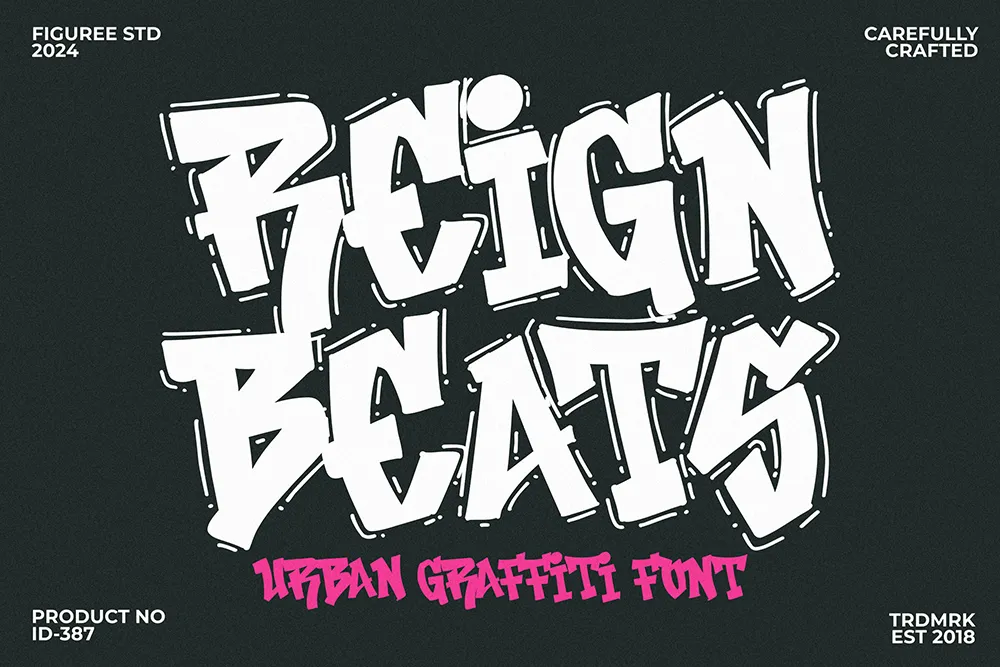
Reign Beats is your go-to font when you want to make some noise—visually. Inspired by the pulse of hip-hop and the vibrancy of the streets, this graffiti font is a dynamic blend of rhythm and rebellion. Ideal for posters, music promotions, and streetwear.
3. Quick Phestor
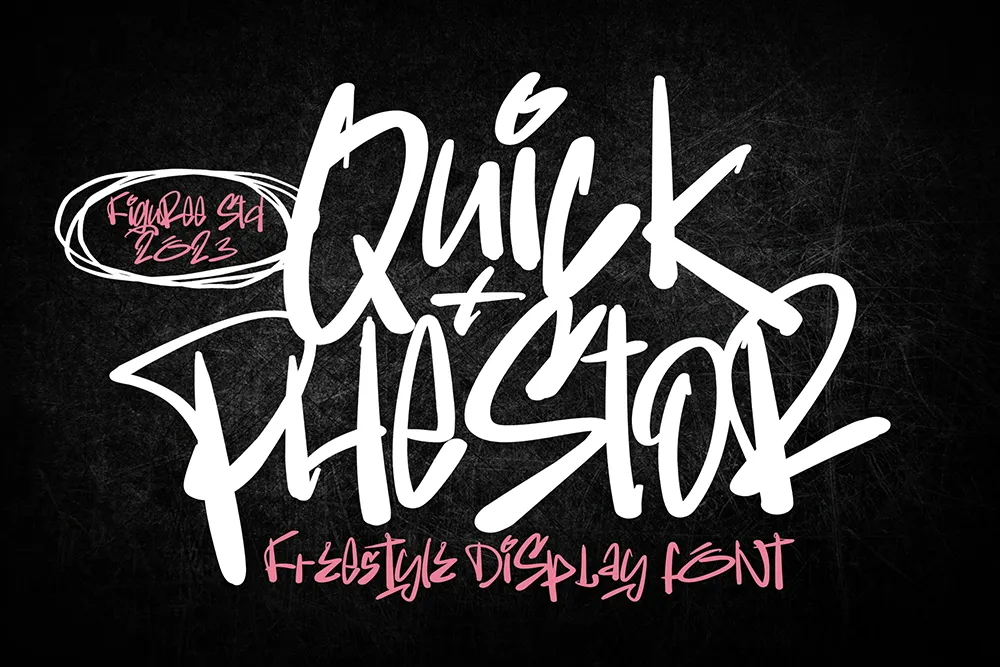
Quick Phestor oozes creative freedom. Its freestyle design and expressive curves deliver an authentic graffiti look that’s perfect for social graphics, sticker packs, or energetic headlines. Better yet? It’s free to use!
4. Xandercode
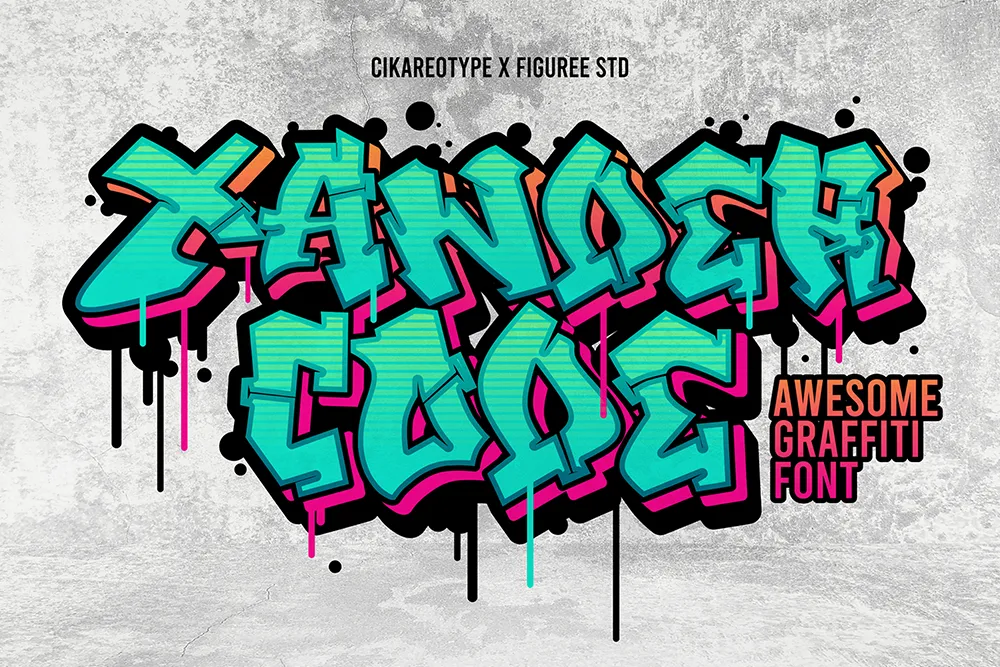
Xandercode is built for impact. With its bold strokes and rebellious form, this graffiti font packs a punch in logos, marketing visuals, and fashion designs. It’s fearless and stylish—exactly what urban creativity demands.
5. Darksite
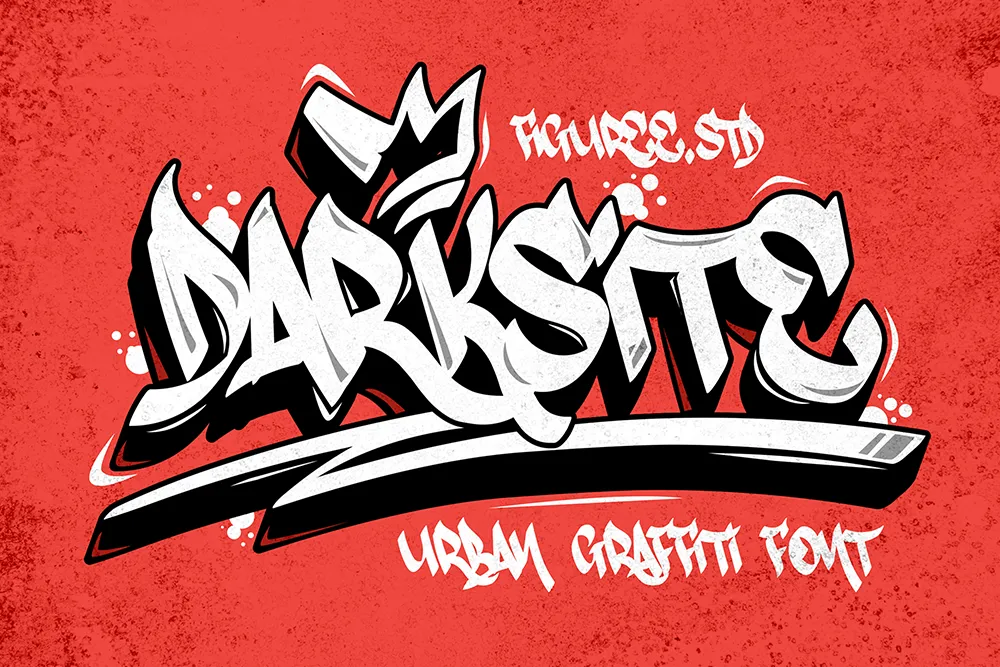
Darksite screams underground. This graffiti font gives your projects an edgy, no-holds-barred look. Hand-drawn and full of character, it’s perfect for hardcore branding, festival flyers, and gritty editorial design.
6. Greatboyz
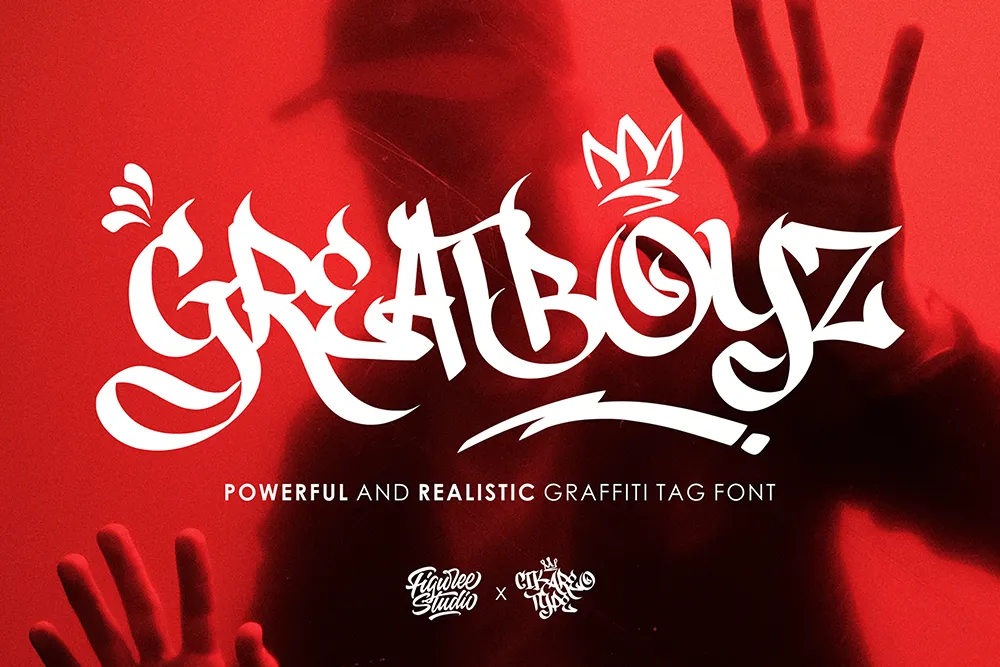
Looking to replicate real street tagging in your work? Greatboyz nails the vibe with its fluid, fast marker-style lines. This font is your shortcut to giving designs that have raw, street-tough authenticity.
7. Bombardies
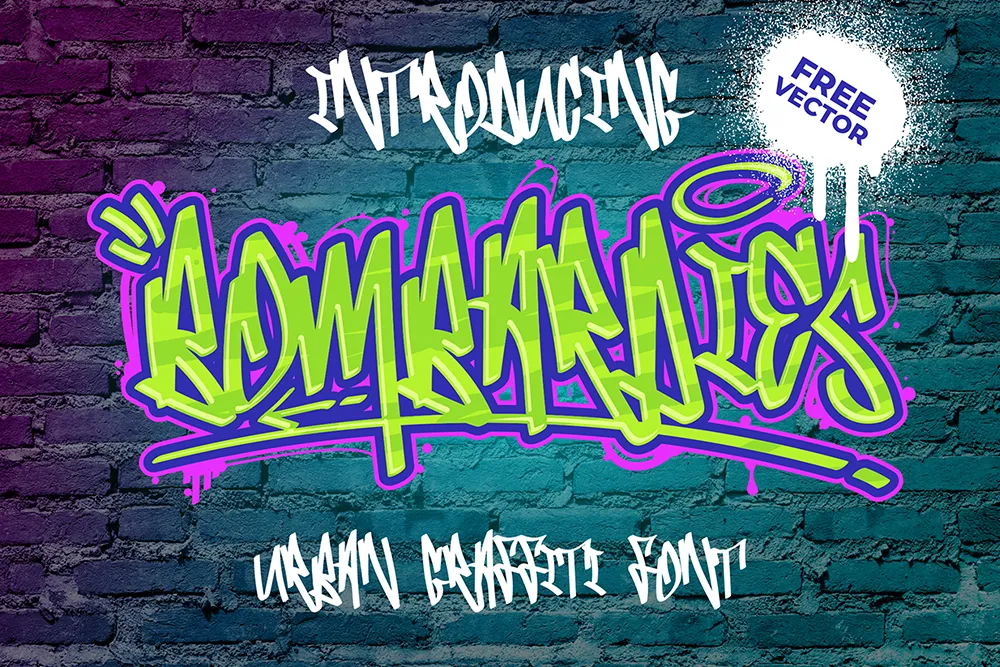
Bombardies is bold, modern, and versatile. Combining graffiti roots with clean forms, this font feels right at home in digital ads, apparel designs, and striking headers.
8. Urban Hope
Playful yet commanding, Urban Hope delivers an upbeat graffiti tone that makes any message feel youthful and full of life. It works wonderfully for children’s branding, youth campaigns, or even edgy product packaging.
9. Rift Punk
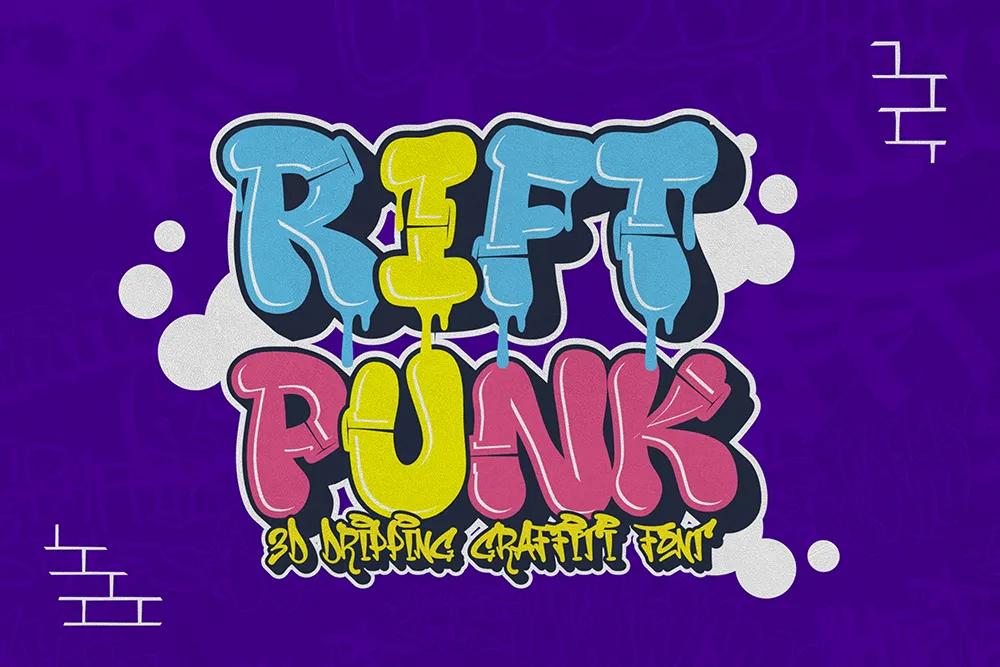
Rift Punk turns the volume up. With 3D layers and dripping details, it’s loud, aggressive, and impossible to ignore—perfect for music branding, event graphics, or dynamic streetwear.
10. Wild Lines
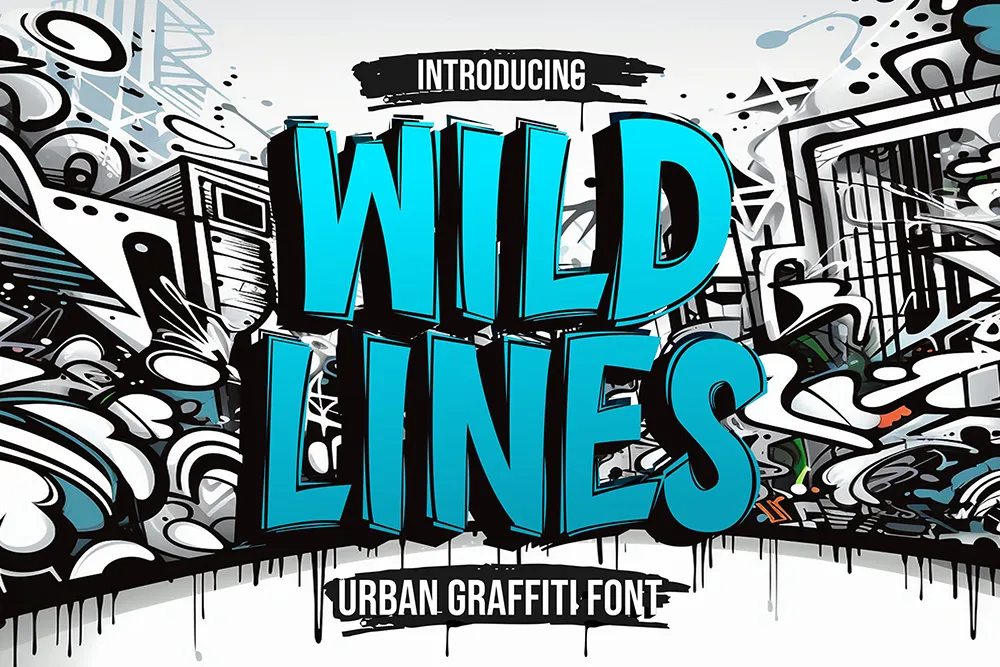
Straightforward and striking, Wild Lines brings angular graffiti energy that’s sharp and unapologetic. It’s great for industrial-style branding or tech-inspired urban visuals.
11. Swizer Street
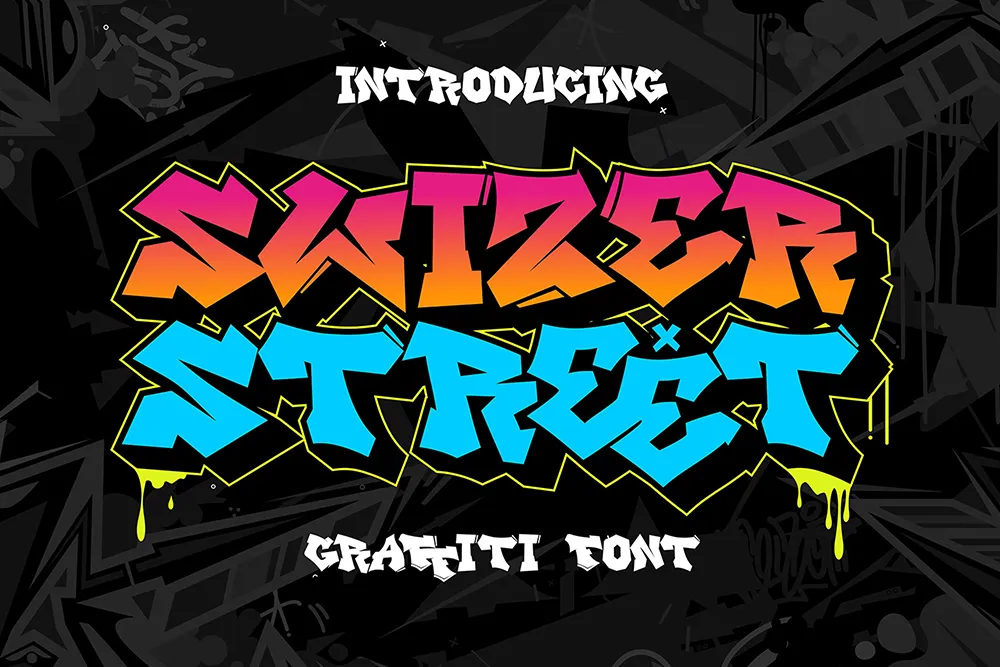
Sharp edges and bold shadows make Swizer Street an attention-grabbing font perfect for large-format designs. Think murals, posters, and high-impact editorial.
12. Subway Ripple
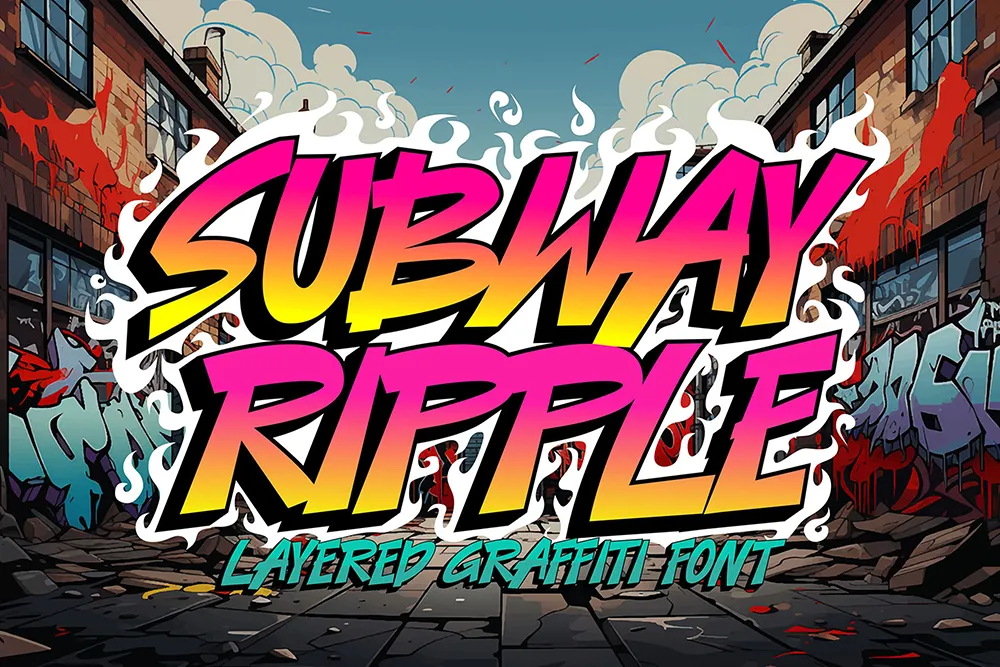
Subway Ripple’s slim, multi-layered forms deliver a lightweight graffiti experience. Ideal for modern street-style campaigns or tech-driven visuals.
13. Graff Tales
If your project tells a story, let Graff Tales narrate it in style. This street-style font is full of flair and character, turning every word into a visual statement.
14. Street Air
Designed to flow like aerosol paint, Street Air is fast, fluid, and full of motion. It’s ideal for racing themes, extreme sports graphics, or youth fashion.
If you’re aiming to break the mold with your visuals this year, these graffiti fonts are a must-try. Their bold, urban energy is perfect for projects that demand attention.
Don’t play it safe—go bold, go urban, go graffiti.